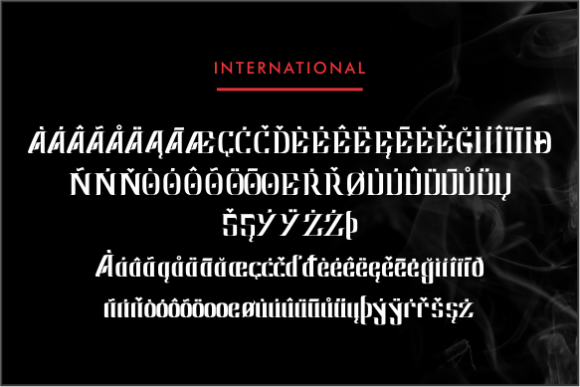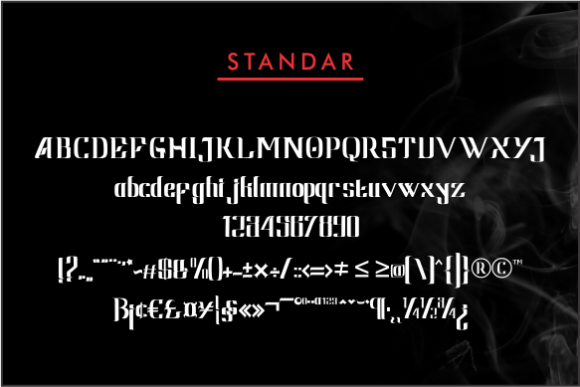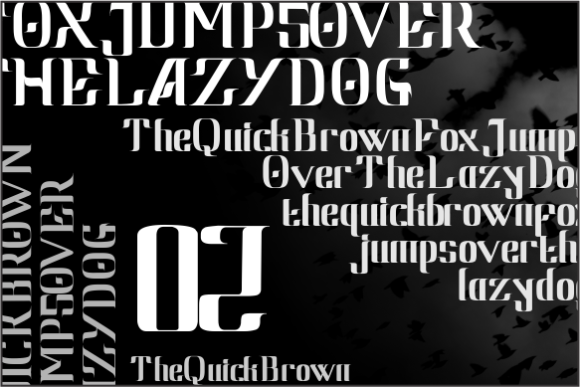
Introduction to Raven Font Font
Fonts play a crucial role in design, and the Raven Font font is a typeface that brings both character and versatility to any project. Whether you’re working on a branding project, a website, or a print design, the Raven Font font offers a unique style that can elevate your work.
The Raven is a striking black letter font.
It was inspired by the sub-text of a book and includes two variations with amazing sharpness It is suitable for use in various media such as headlines, posters, magazines, newspapers, t-shirts, labels, and any other designs that require a striking touch.
Key Features of Raven Font Font
Why Choose Raven Font Font?
The Raven Font font is more than just a typeface – it’s a design tool that helps you communicate your message with style and clarity. Its unique character set and versatile design make it suitable for a wide range of applications, from elegant invitations to bold headlines.
With its carefully crafted letterforms and balanced proportions, the Raven Font font ensures readability and visual appeal across all mediums.
What makes Raven Font font special?
The Raven Font font stands out with its unique design, exceptional readability, and versatility across various design applications.